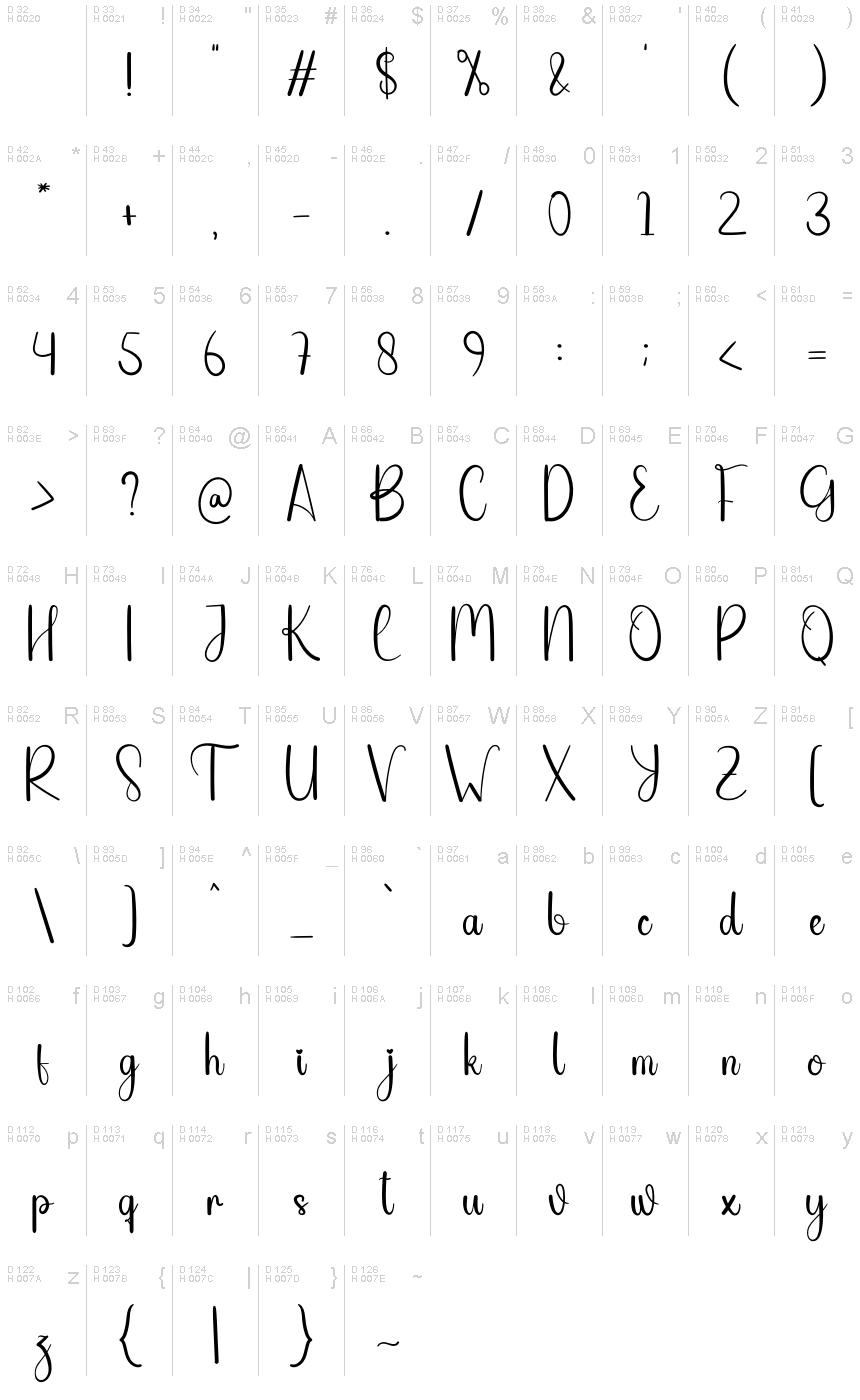
Hello Heart
Hello Heart by Scratchones brings the warmth and intimacy of handwritten communication to any project. Its graceful strokes and playful loops exude a casual elegance, reminiscent of personal notes penned with care. The font's fluidity suggests a friendly tone, making it perfect for invitations, greeting cards, or any piece that benefits from a touch of personal charm.
Its aesthetic appeal lies in the balance between whimsy and sophistication, allowing it to fit seamlessly into both lighthearted and more refined contexts. With its inviting character, Hello Heart is an ideal choice for designers looking to infuse their work with a human touch while maintaining visual interest and readability.